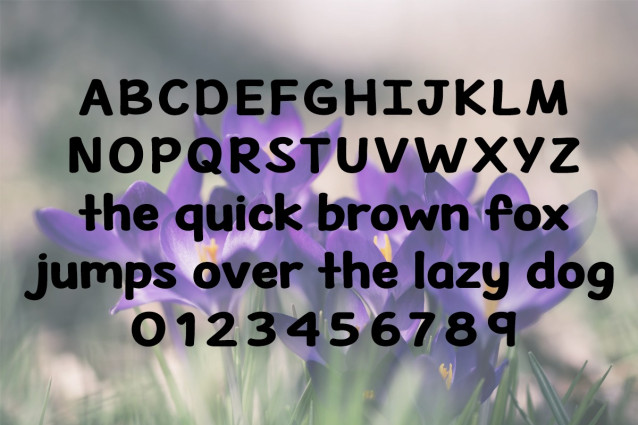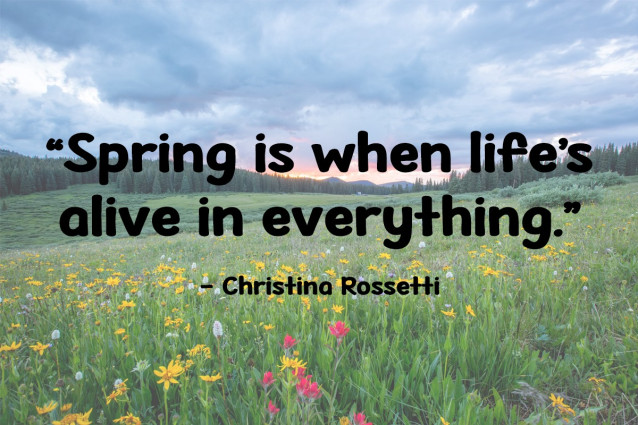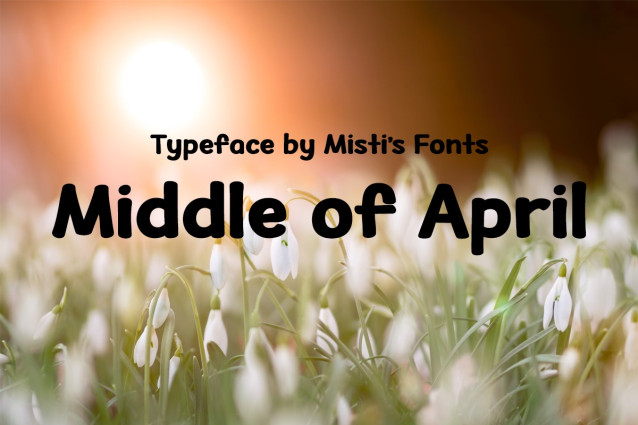
Middle Of April Font
Middle of April Font is a bold font bursting with spring charm. Its playful strokes and lively energy make it perfect for seasonal designs, greeting cards, and fresh branding. Add a touch of warmth and personality to your projects!